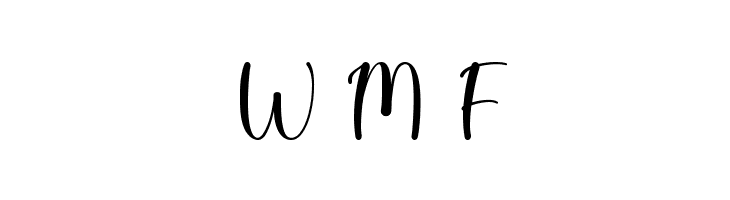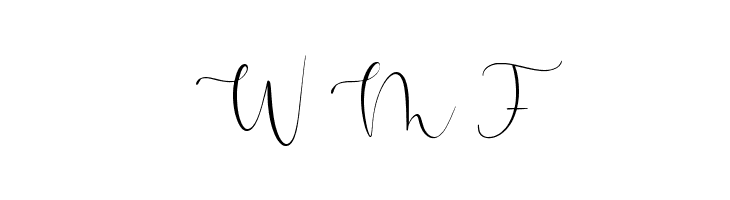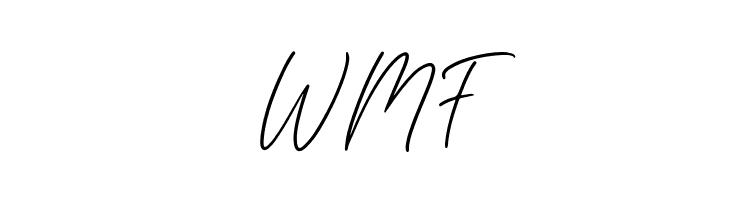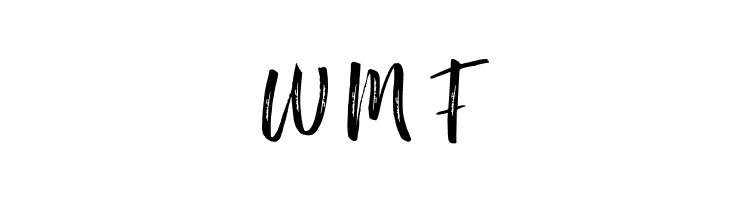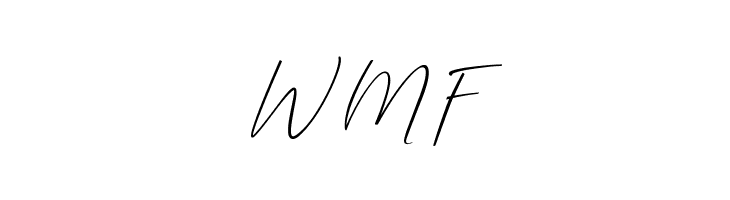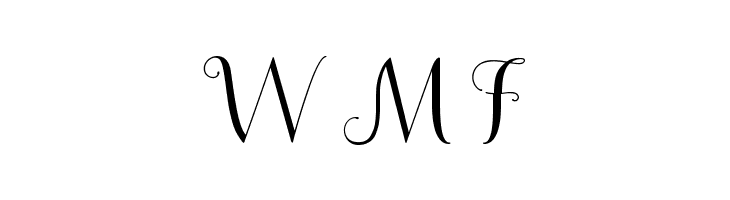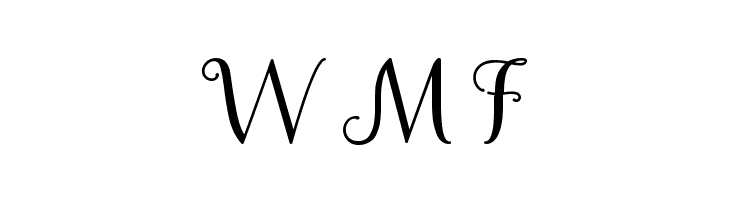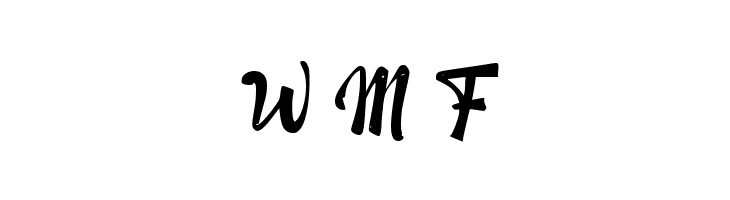
A graceful and fluid script font with elegant curves and delicate strokes.
A graceful and elegant cursive script font with fluid connections and artistic flourishes.
An elegant and decorative script font with flowing curves and intricate flourishes.
A bold, playful script font with elegant, flowing curves.
A bold, brush-style font with dynamic strokes and a modern, handwritten feel.
A bold, high-contrast script font with a dynamic, handwritten style.
A dynamic and elegant script font with artistic curves and bold strokes.
A modern, elegant script font with a handwritten style.
A modern, handwritten cursive font with a fluid and elegant style.
An elegant script font with flowing, interconnected letters and a sophisticated style.